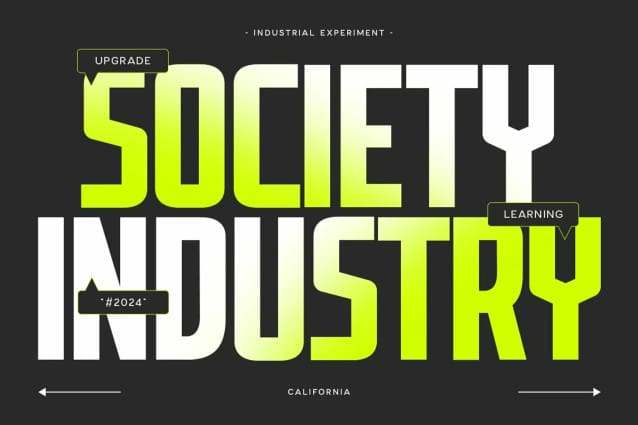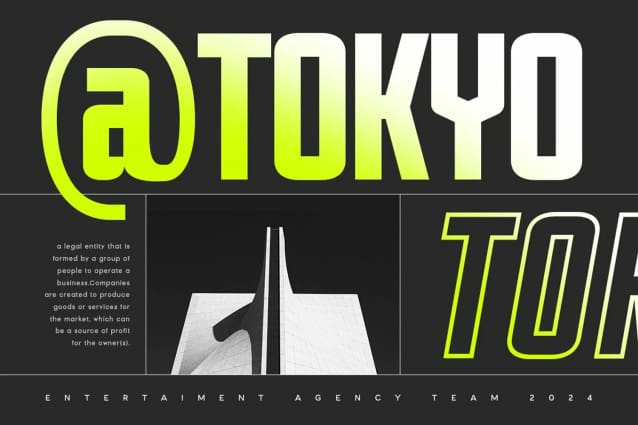
Grand Sans Font
Grand Sans Font is an Modern Headline Bussiness Font that perfect for headline, Title, Instagram post, etc. A new San Serif Font that we created special for Headline, Title and more stand out typography needs, with extra ligature that will add your variations. It’s so perfect to add your style and headline overview. And specially for Headline font, we crafted for unique style and modern feels so enjoy to create any project that will show your main idea out.